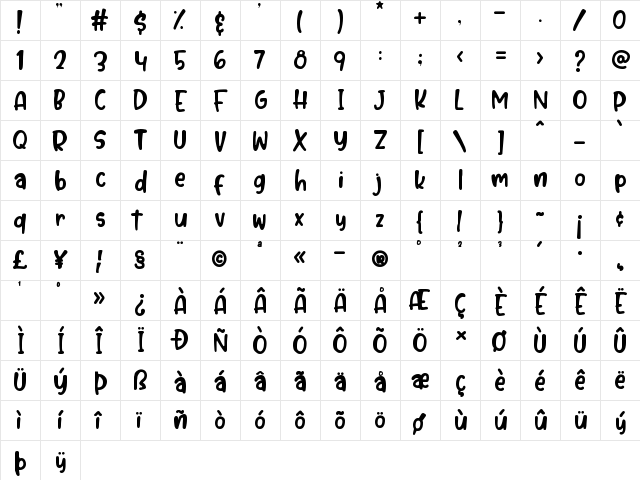
Bubble Mint Regular
Design Context for Bubble Mint Typeface
Bubble Mint has an approachable, lighthearted character — its loose, expressive forms are well-suited to children's content, casual branding, and fun-first design.
Font Pairing: Pairs well with a rounded or humanist sans for body copy, maintaining the friendly tone without relying on Bubble Mint to carry extended reading.
Pro Tip: Avoid using Bubble Mint for long passages of text — it works best for headlines, labels, and short calls to action.